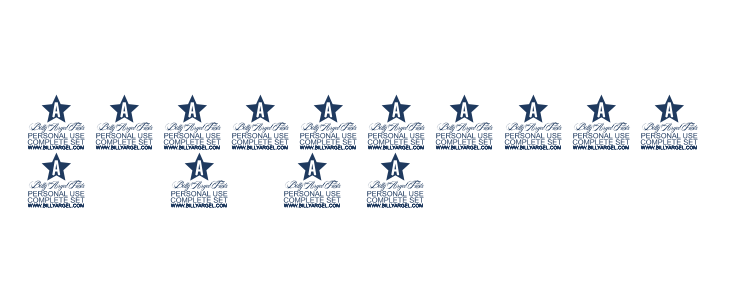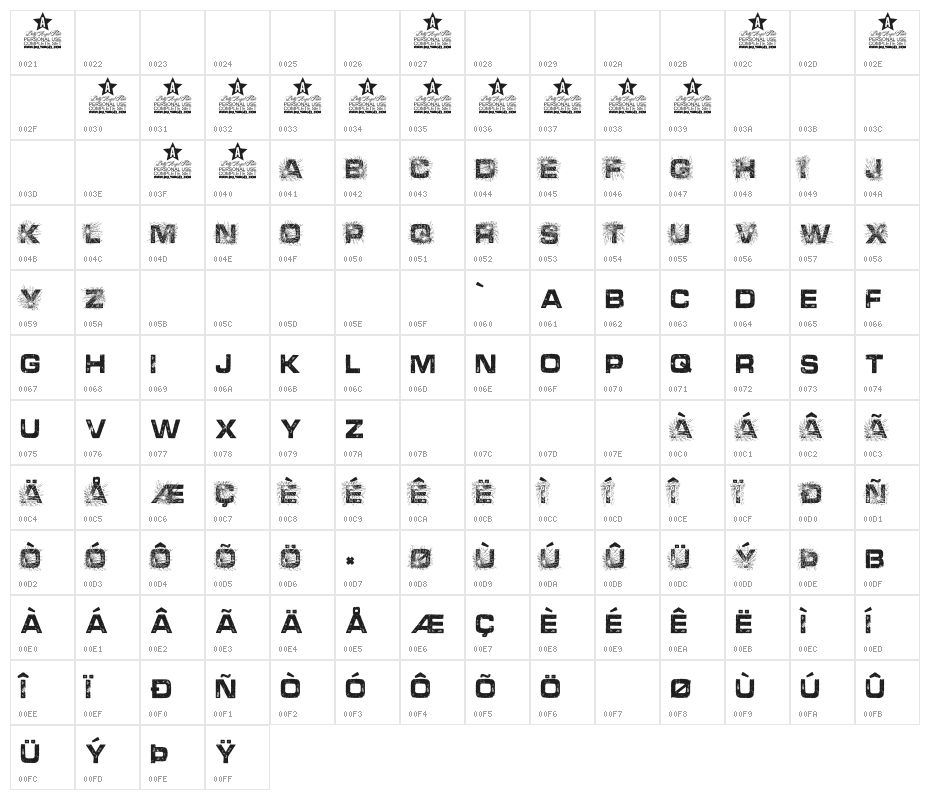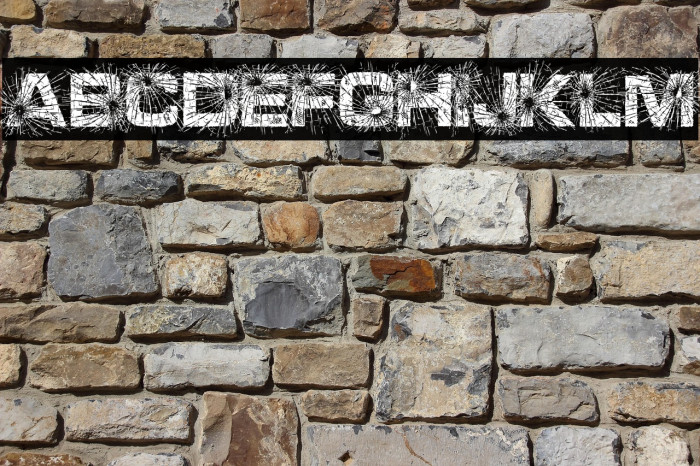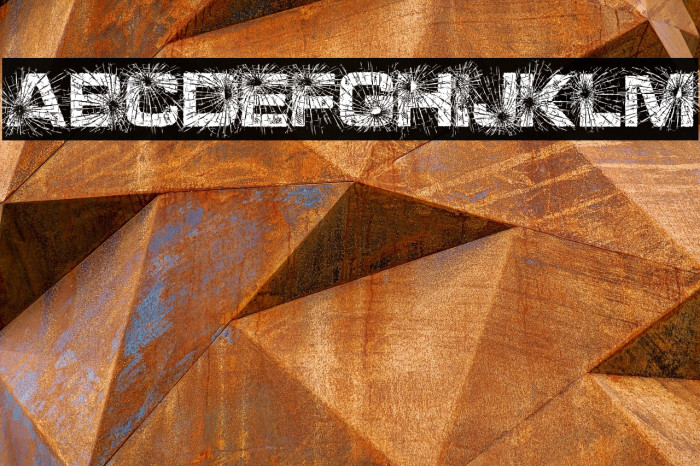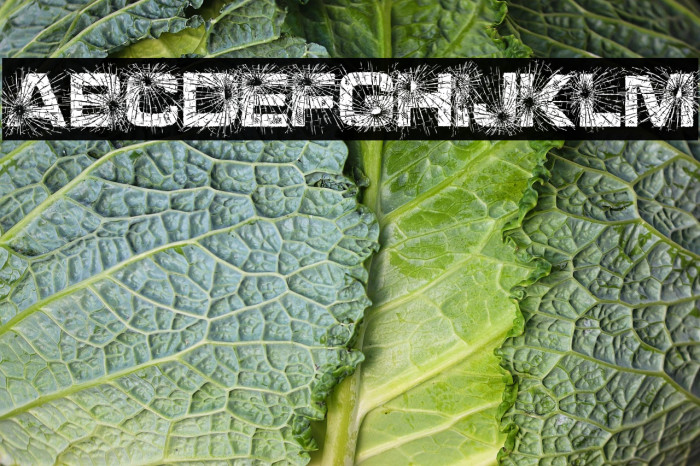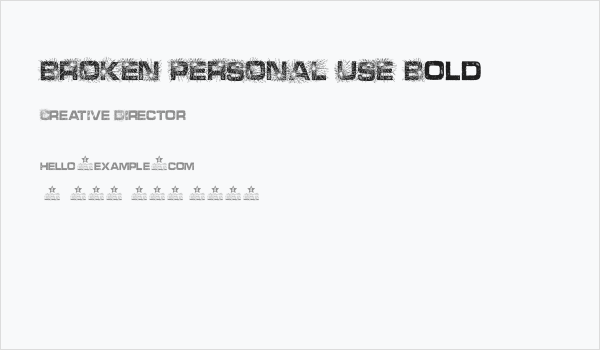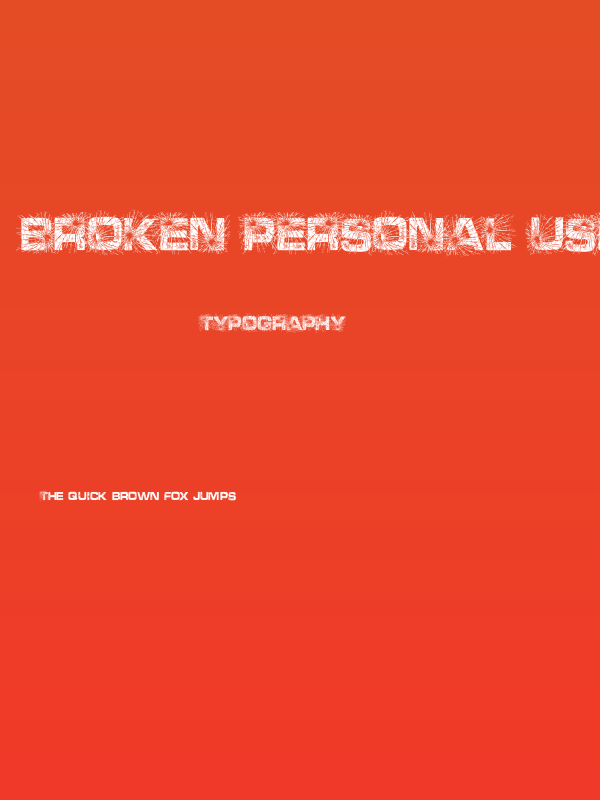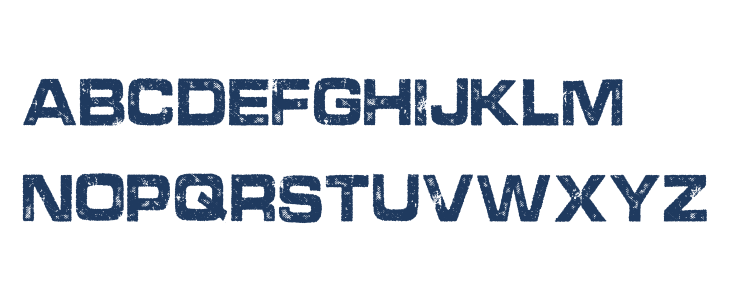
BROKEN PERSONAL USE Bold Font
BROKEN PERSONAL USE Bold Description
This font features a distressed, grunge style with a bold and impactful appearance. The uppercase letters are characterized by a rough, textured finish that gives them a worn, vintage look. The design incorporates irregular edges and a slightly chaotic feel, making it ideal for projects that require a rugged and edgy aesthetic. The font's boldness ensures it stands out, while the distressed details add depth and character. It's perfect for creating eye-catching headlines, posters, or any design that seeks to convey a sense of raw energy and authenticity.
| Overall Style | Vintage, Grunge |
| Proposed Projects | Ideal for posters, album covers, branding projects, and any design requiring a bold, edgy look. |